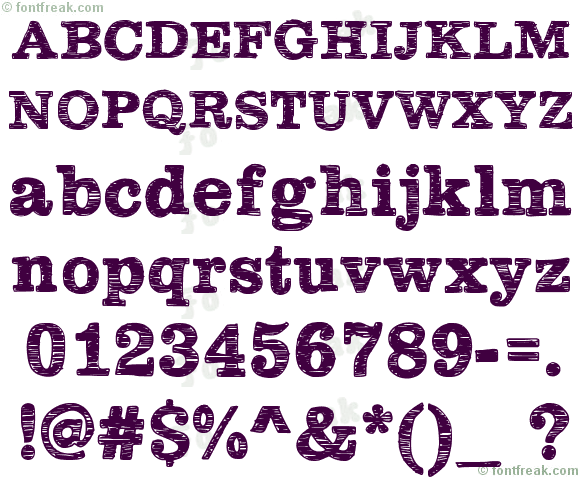
Plateaux
About Plateaux
Plateaux by Luedecke Design Font Co. is a striking display font that captures attention with its unique character and charm. This font is categorized as a decorative typeface, featuring a bold and expressive design that conveys a sense of playfulness while maintaining an air of sophistication. The visual characteristics of Plateaux include a heavy stroke weight combined with a moderate contrast, providing a robust feel that stands out in various applications. The letters are designed with a slight irregularity, giving the font a handmade quality that enhances its appeal.
The spacing in Plateaux is carefully balanced, allowing for easy readability while still emphasizing its artistic flair. Decorative elements, such as the rounded edges and slightly distressed texture, contribute to its rustic, vintage look, making it an excellent choice for a wide range of creative projects.
Ideal use cases for the Plateaux font include wedding invitations, where its charming style can set a romantic tone; movie posters, where its boldness can draw viewers in; restaurant menus, adding a unique touch to the dining experience; and logo designs for artisanal brands, where it can communicate authenticity and warmth. This font is particularly well-suited for graphic designers, small business owners, and content creators looking to make a strong visual impact.
In conclusion, Plateaux stands out for its distinctive blend of strength and whimsy, making it a versatile choice for anyone seeking to enhance their design projects. The combination of its unique characteristics and the fact that it is available as a freeware font means that you can easily incorporate Plateaux into your work. Don’t miss the chance to explore the Plateaux font free download and elevate your creative endeavors.